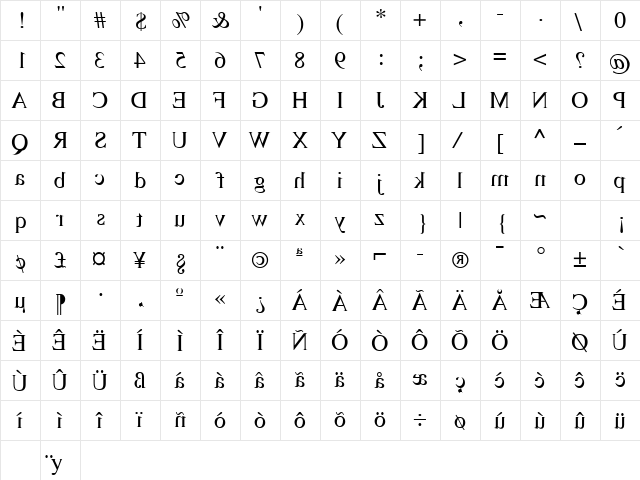
Dabbington Regular
Design Context for Dabbington Typeface
Dabbington is a composed and adaptable typeface that performs quietly and consistently across a wide range of design contexts.